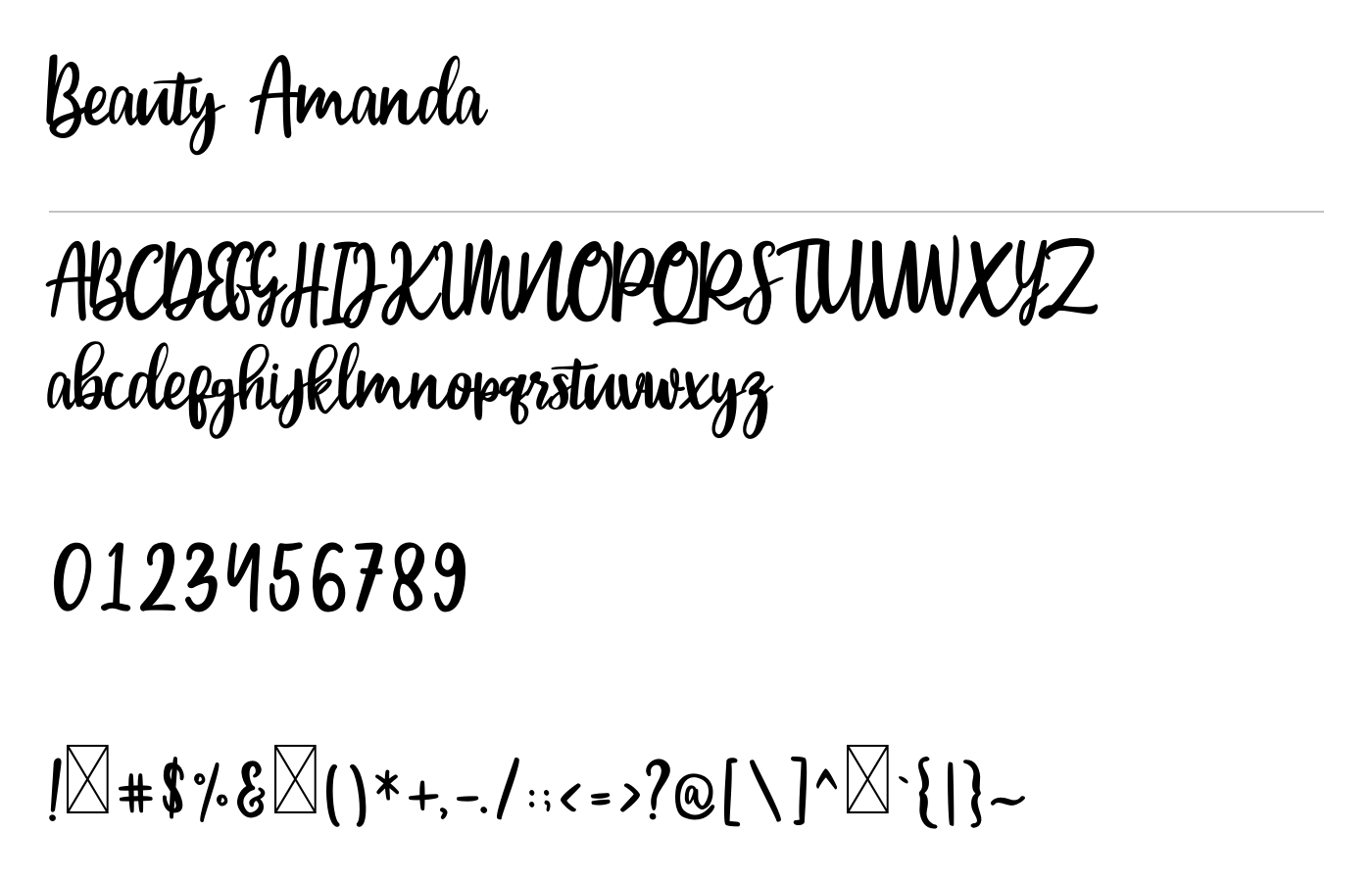
Beauty Amanda is a lively and charming script font that features smooth, flowing strokes with moderate contrast and a handwritten feel. Its playful yet elegant style makes it perfect for creative projects like beauty branding, invitations, and casual editorial designs, where a personal, approachable touch is desired. The font’s balanced letterforms and clear readability also suit it well for headlines and logos aiming to convey warmth and friendliness.
Beauty Amanda Font
About Beauty Amanda Font
| Font family | Beauty Amanda Font |
| Designer | Candacreative |